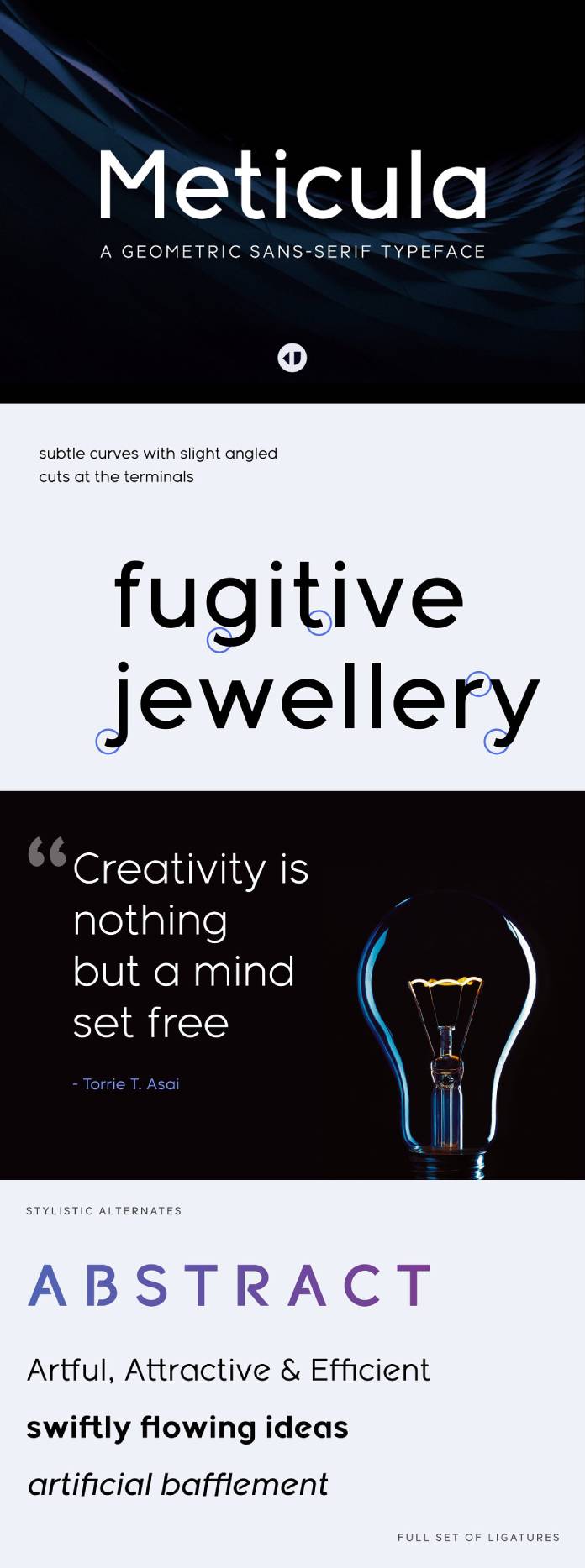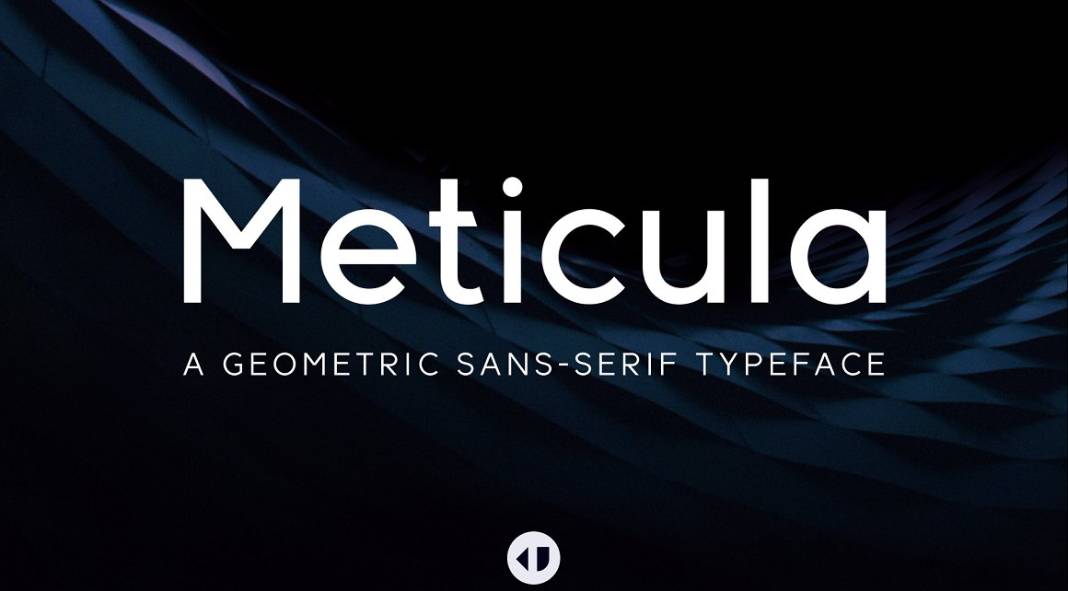
Meticula is the ideal font family for all designs that ask for modern typography.
If you’re looking for a sans-serif font that’s modern and minimalistic, then Meticula is a perfect choice. Designed by Kush Jain, this comprehensive typeface consists of eighteen fonts crafted with geometric shapes to create an array of distinctive styles ideal for any typography or graphic design project.